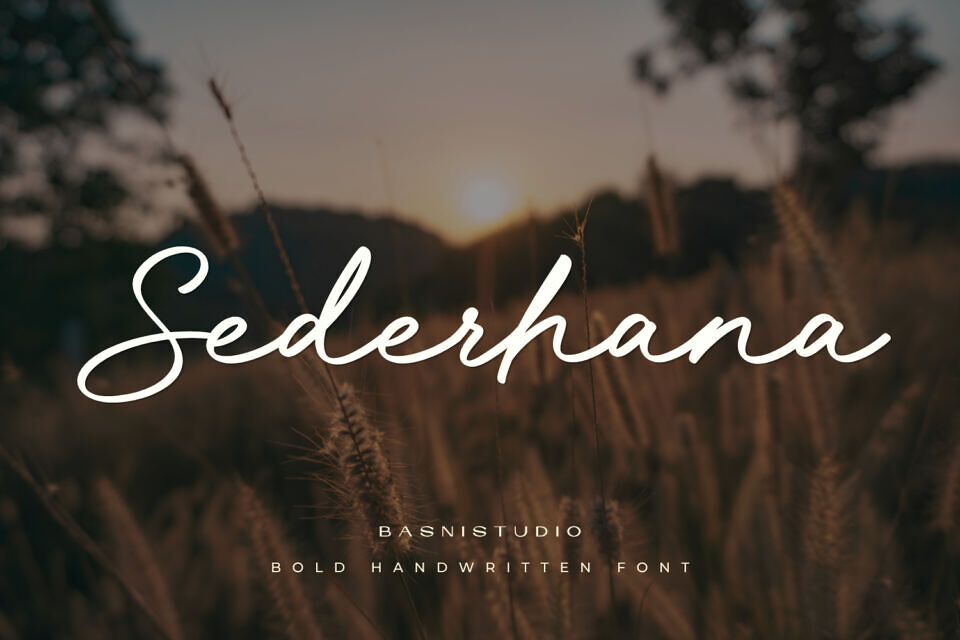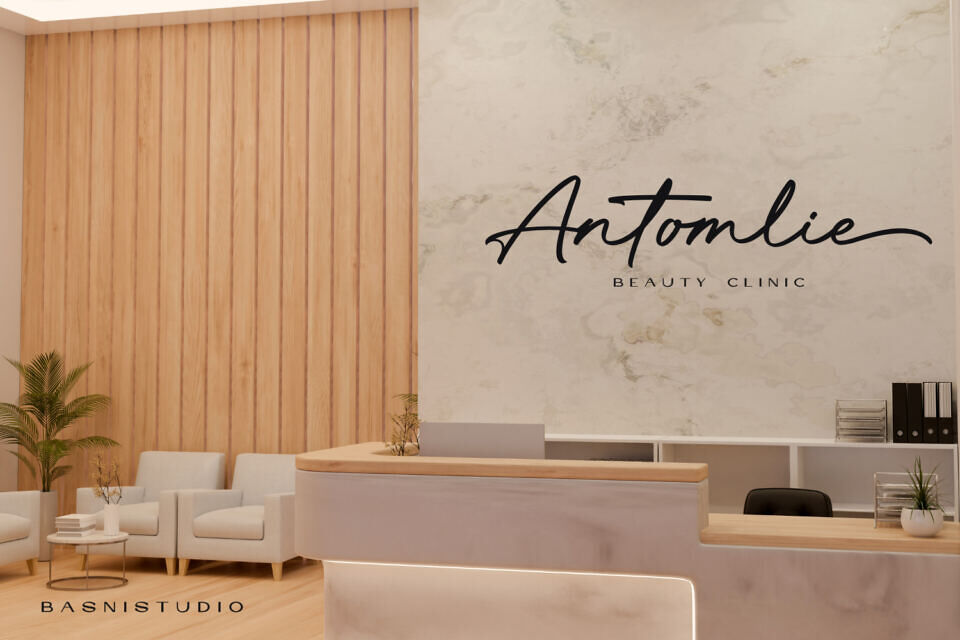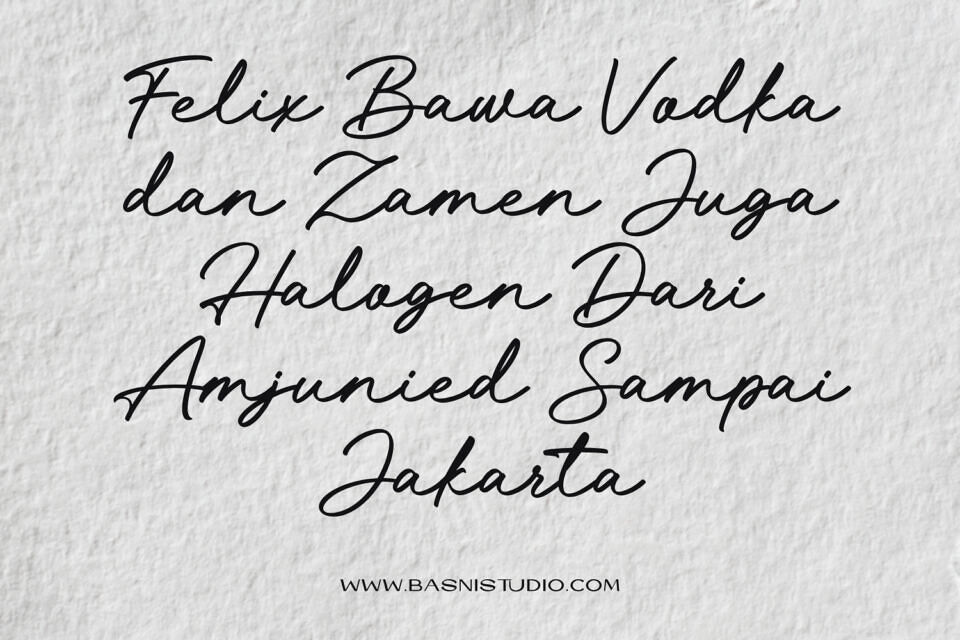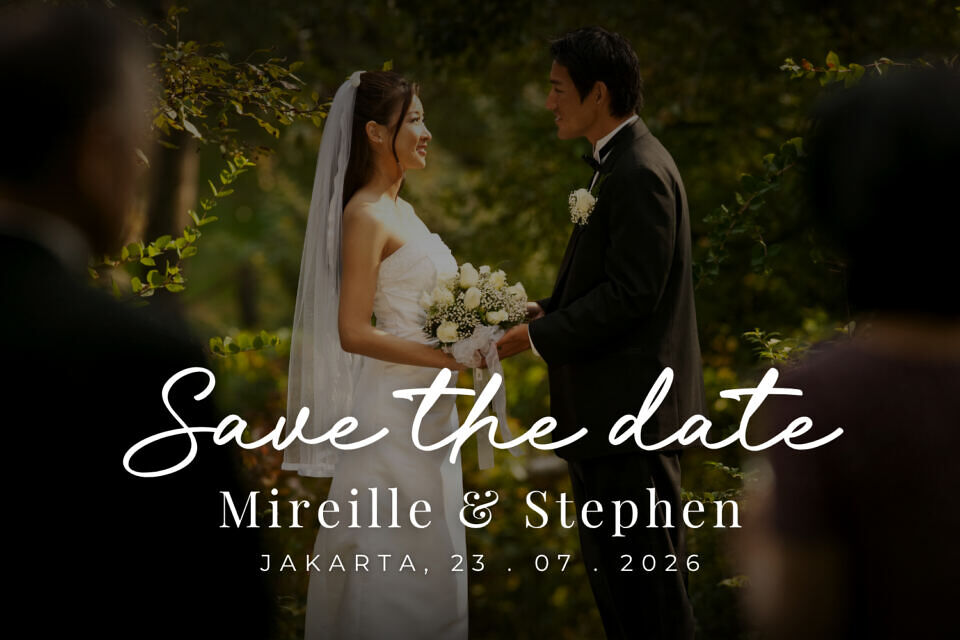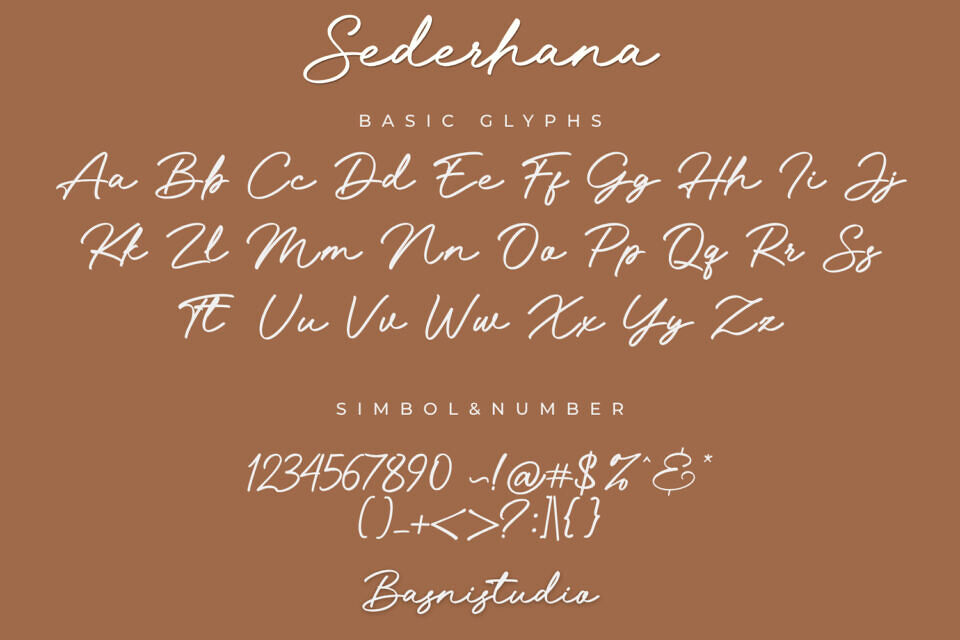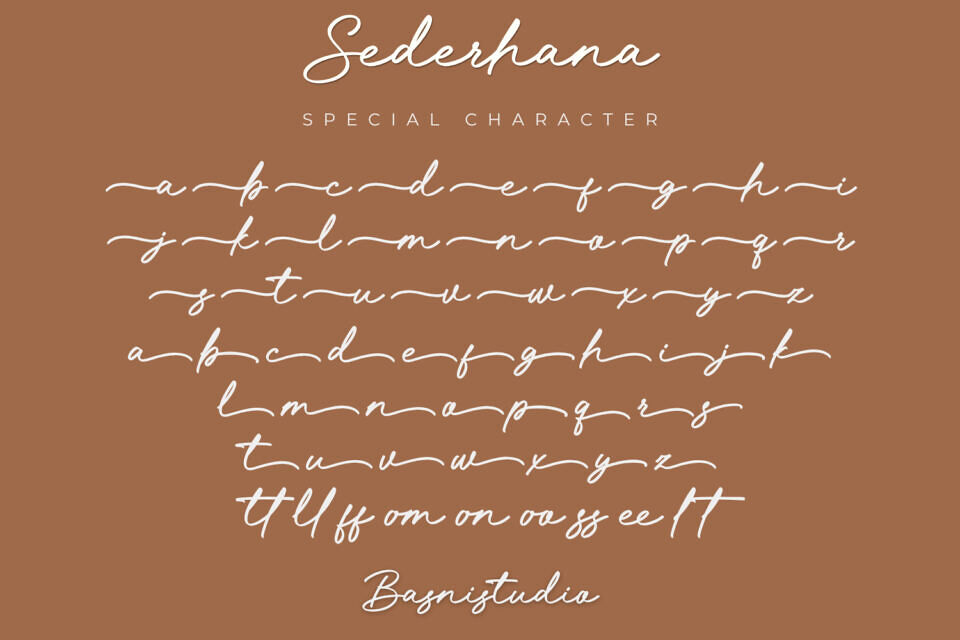
Sederhana Font
Sederhana is a charming, handwriting typeface that radiates warmth and approachability. Living up to its name—sederhana means simple in Indonesian—it swaps clinical precision for thick, organic strokes and a natural flow.
Perfect for branding, invitations, and social media, this font adds an authentic human touch to digital designs. It’s the go-to choice when you want your message to feel personal, grounded, and effortlessly bold without overcomplicating the aesthetic.